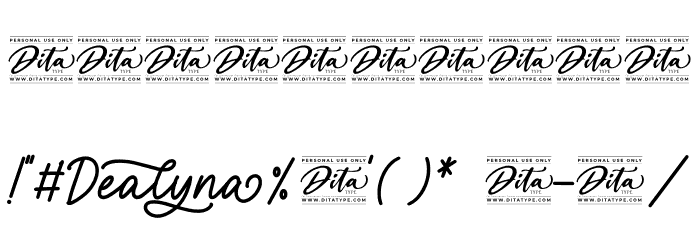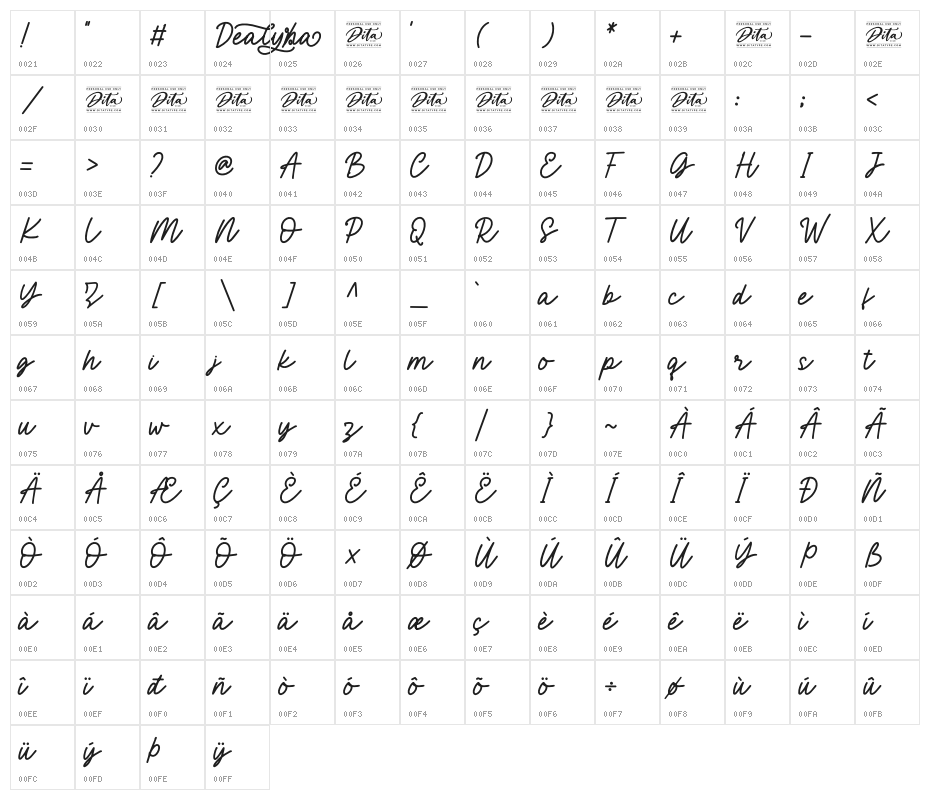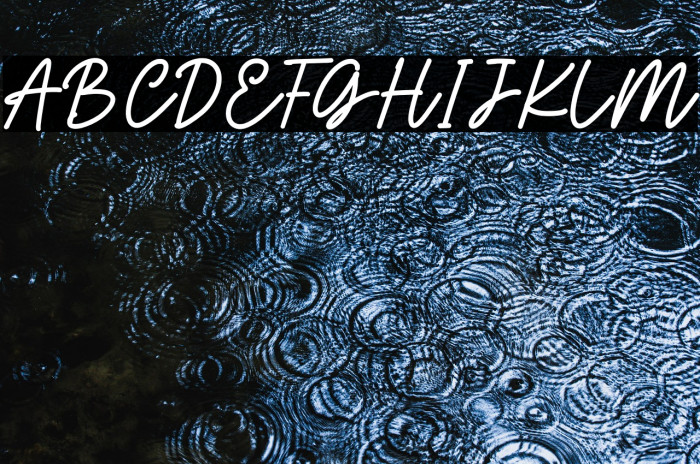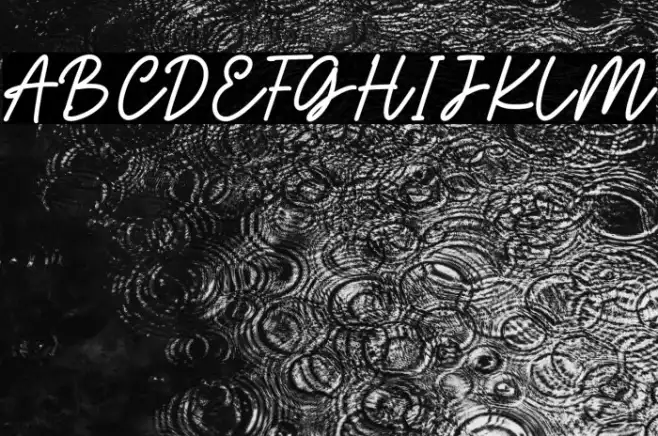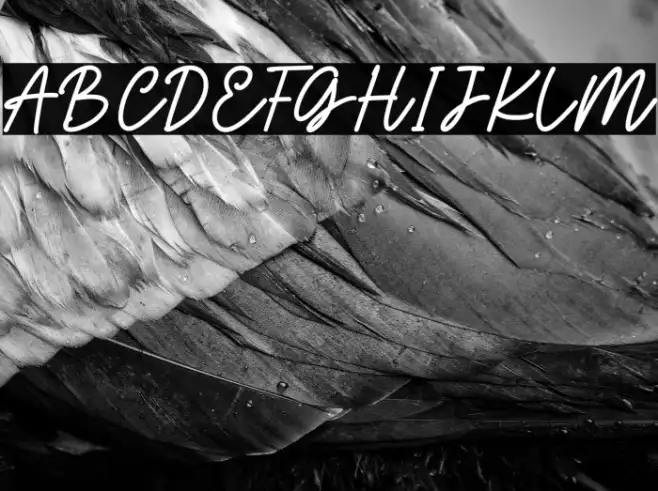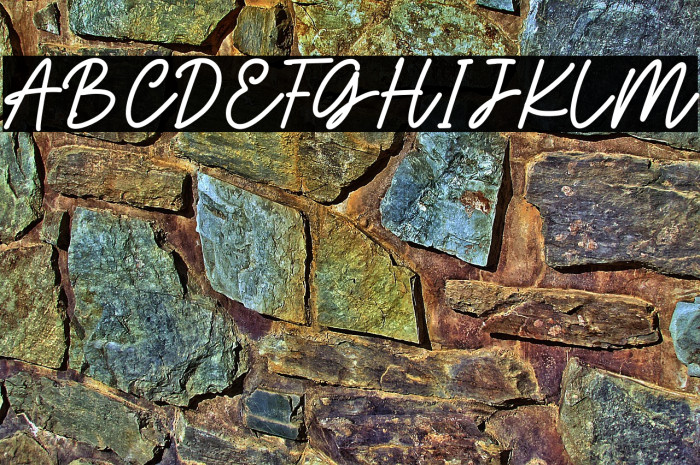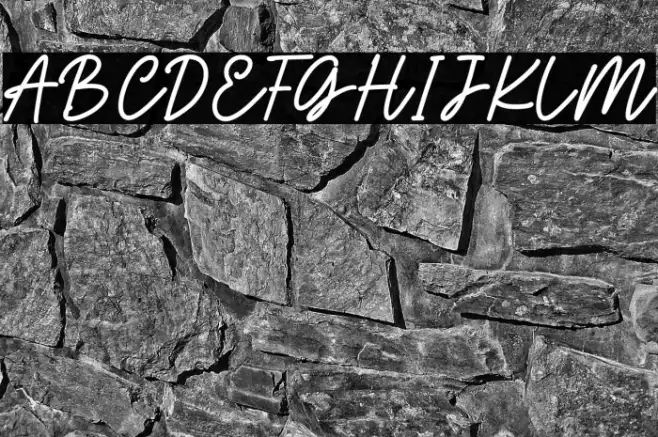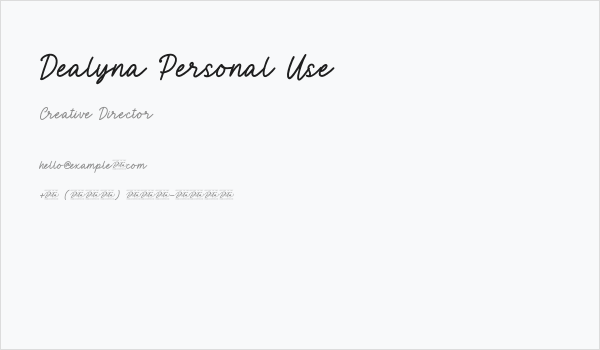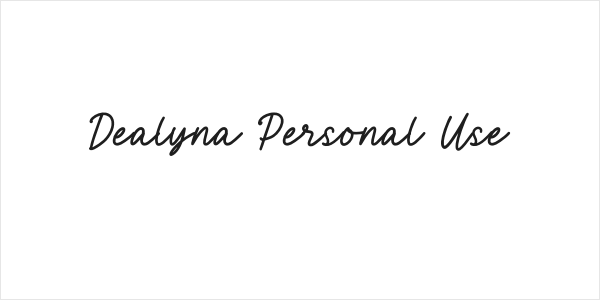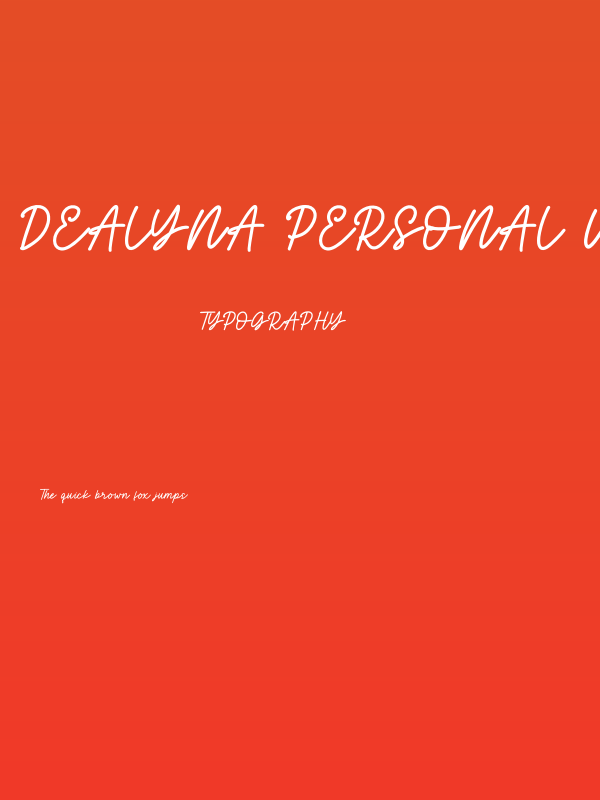
Dealyna Personal Use Font
Dealyna Personal Use Description
This font features a flowing, cursive style with a modern touch. The letters are elegantly connected, creating a seamless and fluid appearance. The uppercase letters maintain a consistent height, while the lowercase letters exhibit a slight slant, enhancing the script's dynamic nature. The characters are well-balanced, with smooth curves and a harmonious rhythm. The font's design is both sophisticated and approachable, making it suitable for a variety of applications. The special characters, including symbols and punctuation, are crafted to match the overall aesthetic, ensuring a cohesive look across all text elements.
| Proposed Projects | Ideal for wedding invitations, greeting cards, personal branding, and elegant packaging designs. |